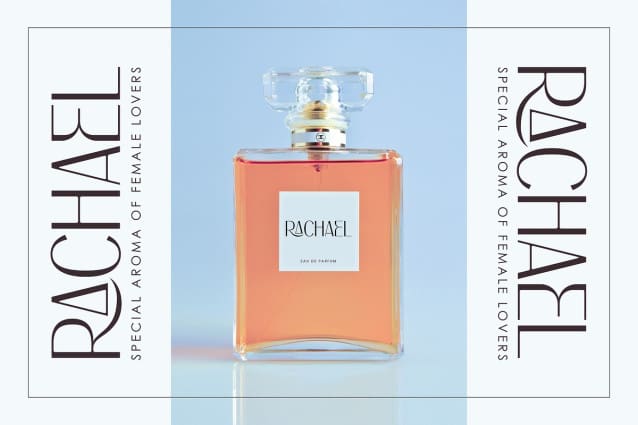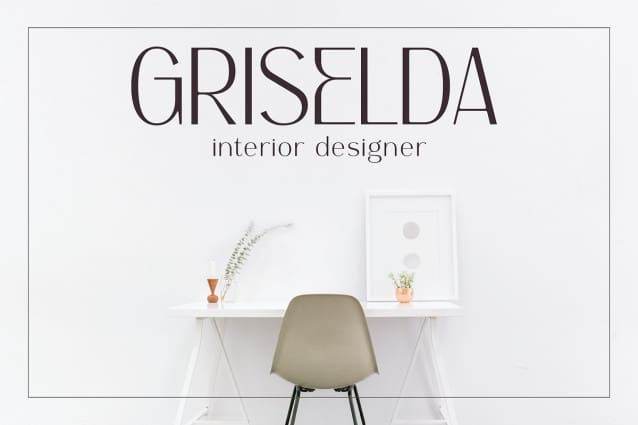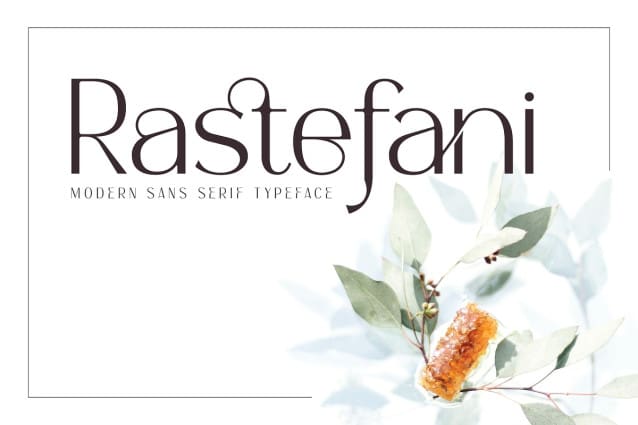
Rastefani Font
Rastefani Font –  Modern San Serif, created by Denustudios, A serif modern and classic typeface that has own unique style & modern look. This typeface is perfect for an elegant & luxury logo, book or movie title design, fashion brand, magazine, clothes, lettering, quotes, and so much more.